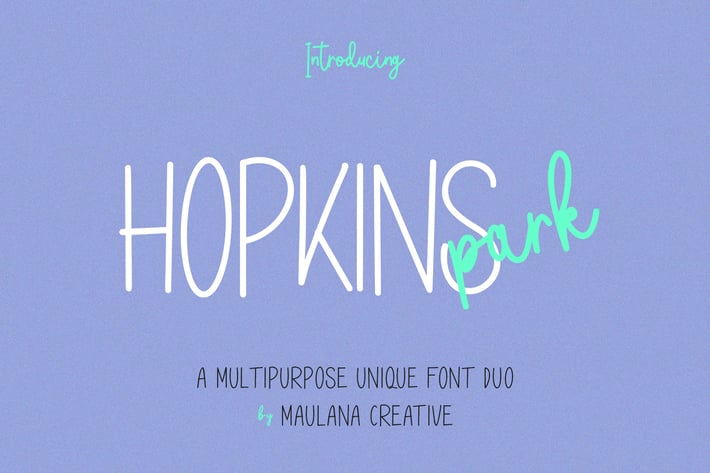
Hopkins Park Multipurpose Unique Font Duo
Give your designs an authentic handcrafted feel. Hopkins Park Multipurpose Unique Font Duo is perfectly suited to signature, stationery, logo, typography quotes, magazine or book cover, website header, clothing, branding, packaging design and more.